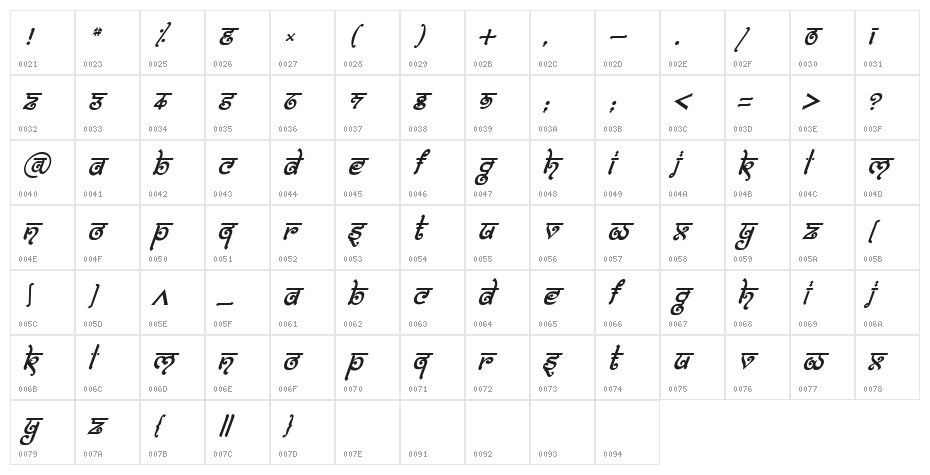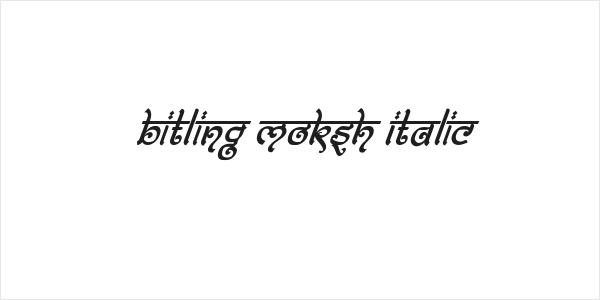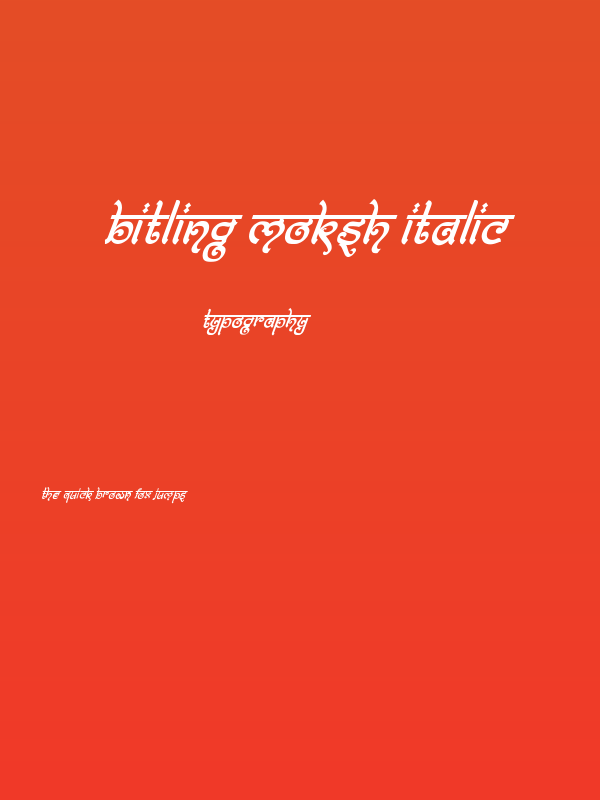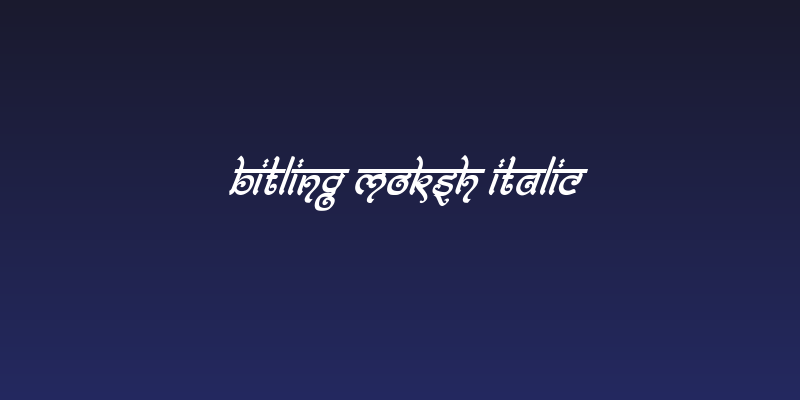
Bitling moksh Italic Font
Bitling moksh Italic Description
This font features a unique and artistic style with a distinct italic slant, characterized by its flowing and interconnected letterforms. The characters exhibit a decorative flair, with elegant curves and loops that add a sense of movement and dynamism. The uppercase and lowercase letters maintain a consistent style, while the numerals and special characters complement the overall aesthetic. The font's design is both bold and expressive, making it suitable for creative and eye-catching projects. Its intricate details and stylish appearance make it stand out, offering a modern twist on traditional calligraphic elements.
| Proposed Projects | Ideal for creative projects such as invitations, branding, logos, and artistic posters. |